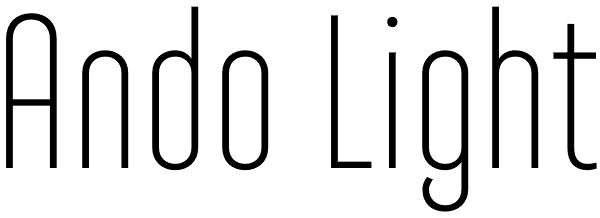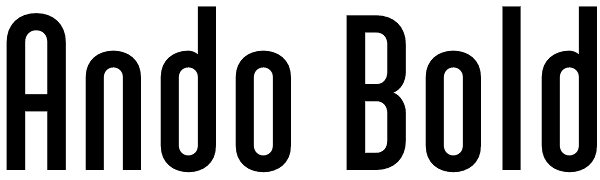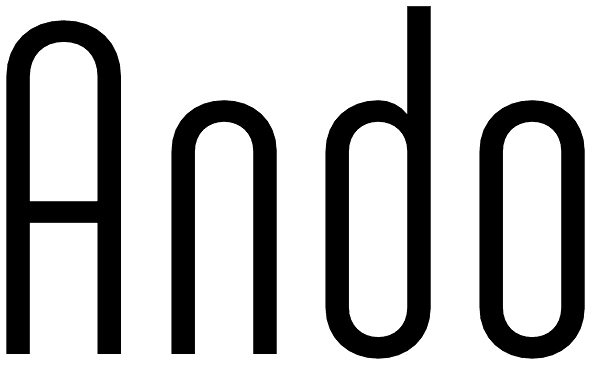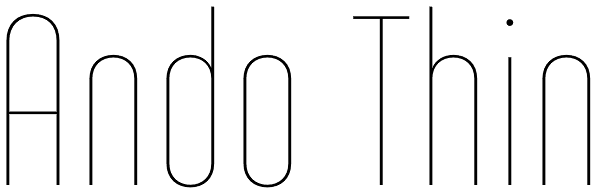
Ando
Ando is a condensed typeface family consisting of 5 weights. Its modular design works particularly well for headlines & display use, where its soft curves & distinctive letterforms can create an instant eye-catching effect. The fonts, provided in...